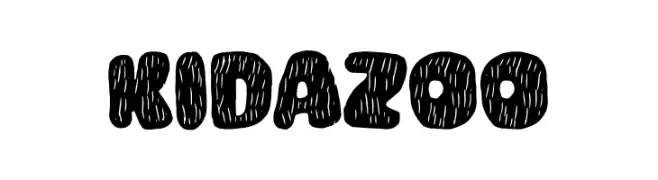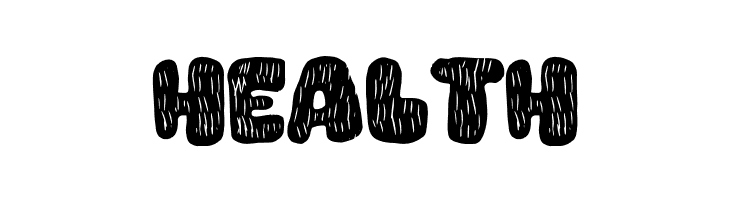
( Fonts by Display Studio )
A playful, hand-drawn font with a whimsical and creative style.
( Fonts by Display Studio )
A playful, hand-drawn outline font with whimsical elements and a casual style.
( Fonts by Display Studio )
A playful, handwritten italic font with a lively and dynamic style.
( Fonts by Doni Dorra )
A playful, bold font with a hand-drawn, cartoon-like style.
( Fonts by Awansenja Type )
A playful, bold font with a whimsical, hand-drawn style.
( Fonts by Gilz Creative Studio )
A playful, rounded font with a youthful, hand-drawn style.
( Fonts by StringLabs Creative Studio )
A playful, bold font with whimsical, exaggerated letterforms.
( Fonts by monocotype )
A playful, hand-drawn font with bold, rounded characters and a whimsical style.
( Fonts by Awansenja Type )
A bold, dynamic font with a playful, three-dimensional style.
( Fonts by Katika Hovorka )
A playful, shadowed font with bold, rounded characters perfect for fun designs.
( Fonts by Katika Hovorka )
A playful, bold font with rounded characters and a shadow effect, perfect for fun projects.
( Fonts by Katika Hovorka )
A playful, bubbly font with rounded characters perfect for fun and creative designs.
( Fonts by Nirmala Graphics )
A playful, hand-drawn font with bold, uneven strokes and whimsical character shapes.
( Fonts by GoldenGraph Design )
A playful, bold, and hand-drawn font with rounded characters.
( Fonts by StringLabs Creative Studio )
A playful, bold font with rounded, bubbly characters and whimsical white dots.
( Fonts by StringLabs Creative Studio )
A bold, playful font with rounded characters and whimsical cutouts.
( Fonts by Zeenesia Studio )
A playful, hand-drawn serif font with a whimsical and informal style.
( Fonts by Zeenesia Studio )
A playful, hand-drawn font with rounded, smooth letters and a whimsical style.
( Fonts by StringLabs Creative Studio )
A playful, whimsical font with bold strokes and rounded edges, offering a hand-drawn feel.
( Fonts by Creakokun Studio )
A bold, dynamic script font with a handwritten appearance.
A playful, hand-drawn font with rounded, friendly characters.
A bold, playful font with rounded edges and decorative cutouts.
A playful, bold font with a hand-drawn, bubbly style and whimsical cut-out details.
A playful, bold, and hand-drawn style font with rounded characters.
( Fonts by Jujun Gag )
A playful and bold typeface with a whimsical, chunky design.
( Fonts by Tokokoo Studio )
A bold, playful font with diverse patterns and textures, perfect for fun, youthful designs.
( Fonts by Sahl Studio )
A playful, hand-drawn font with rounded, bubbly characters.